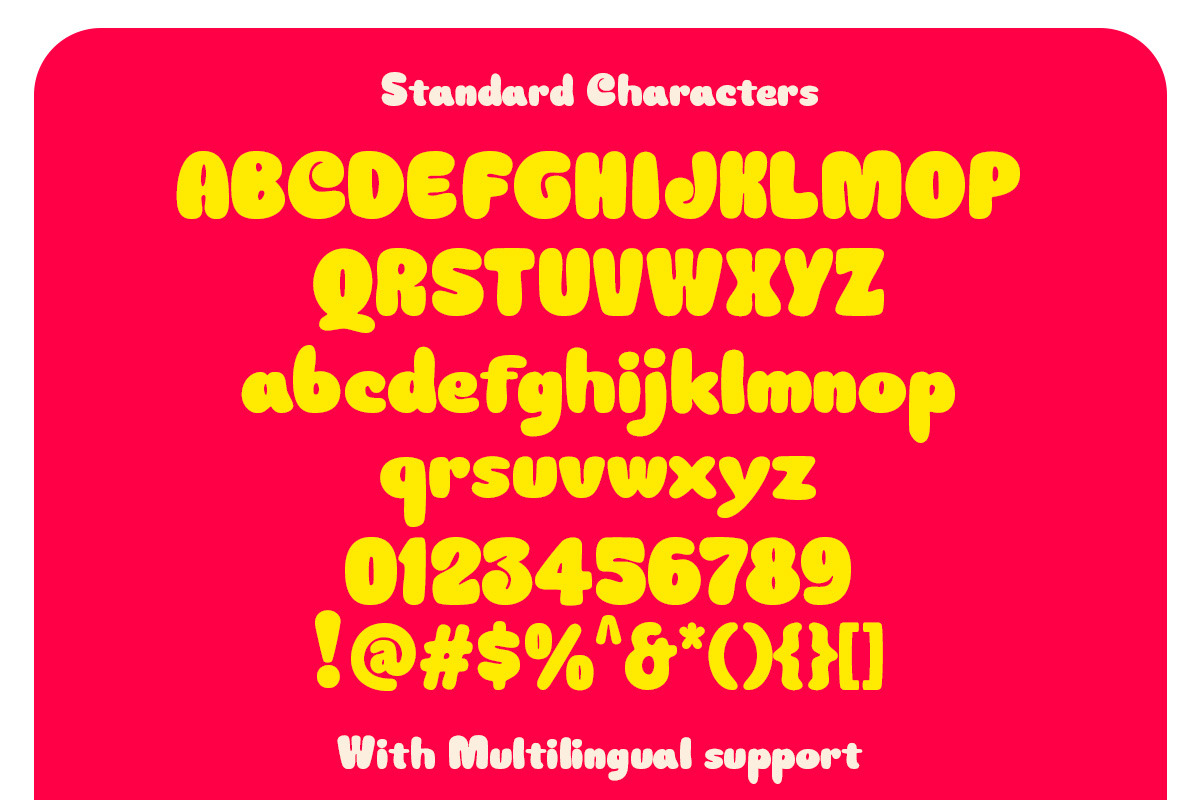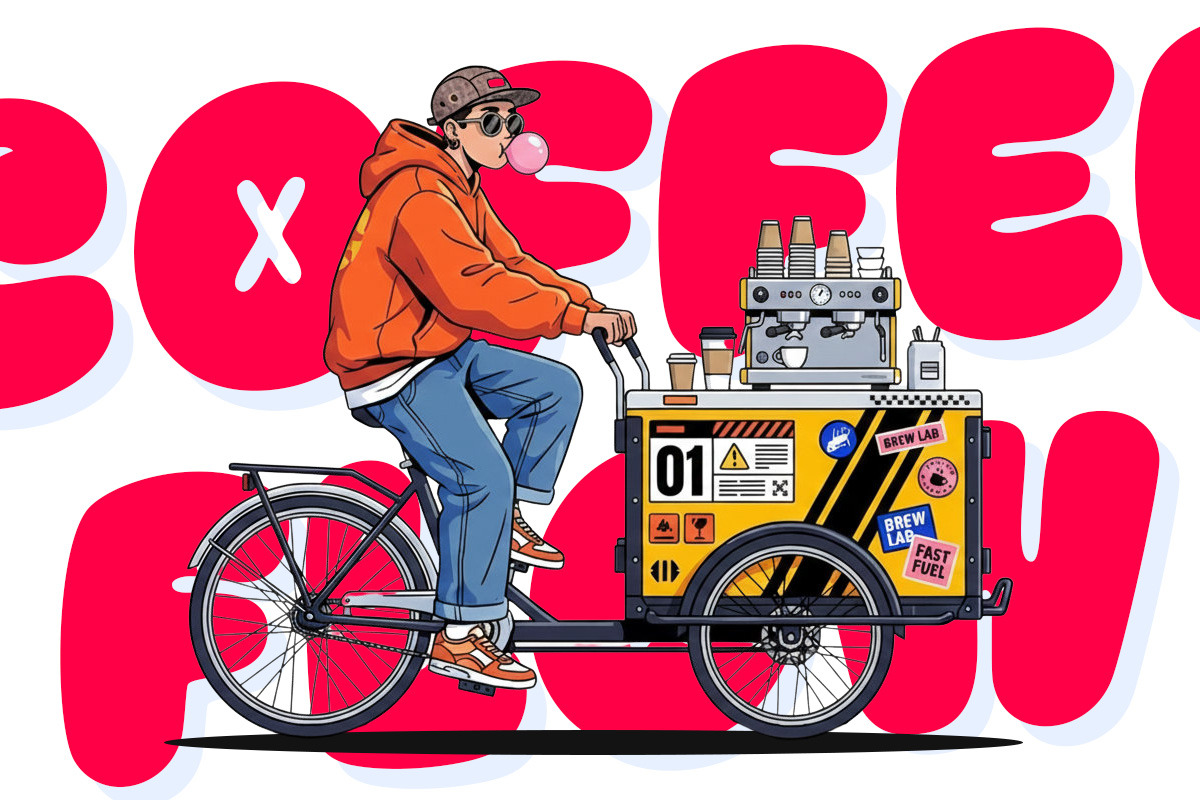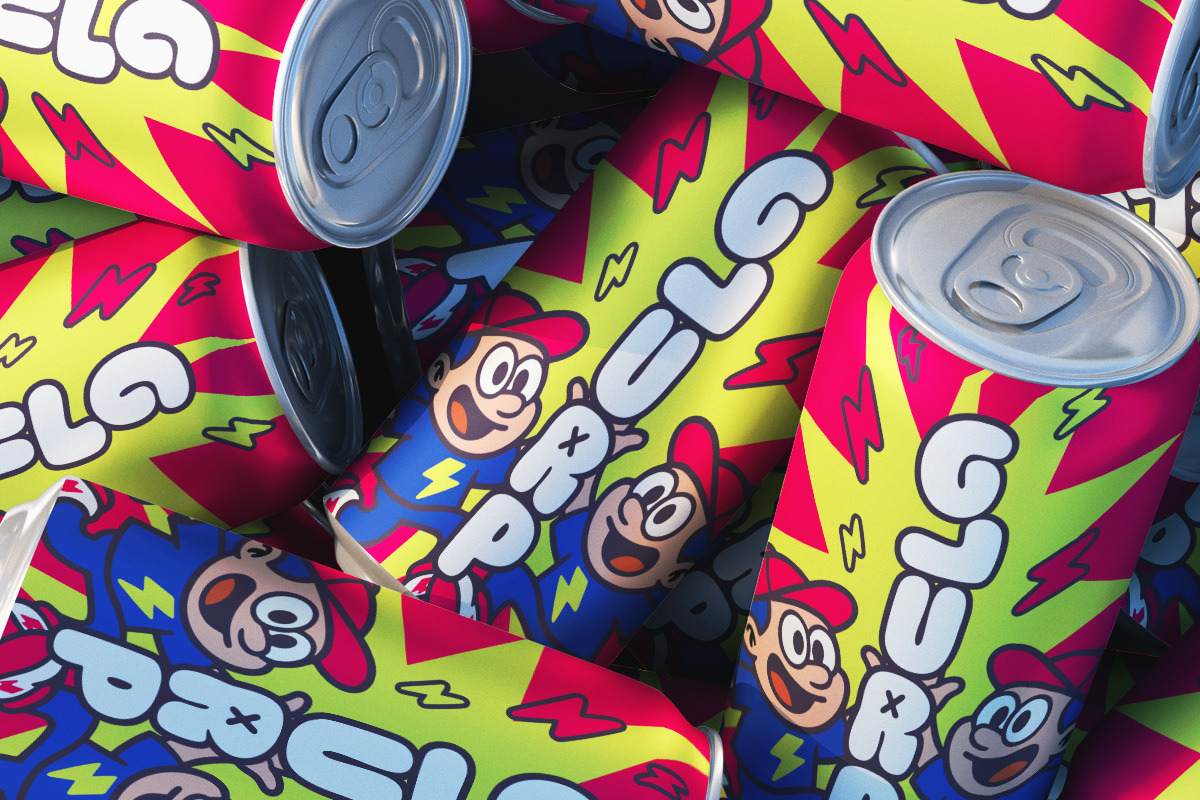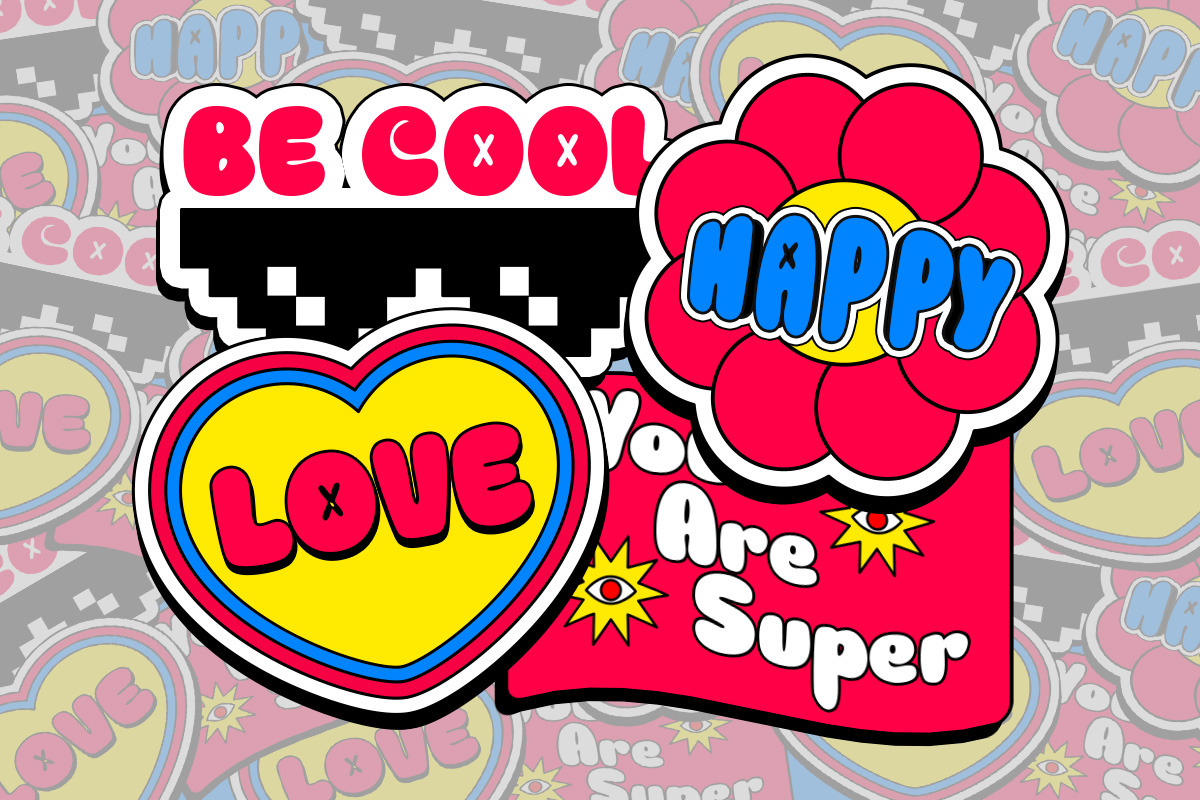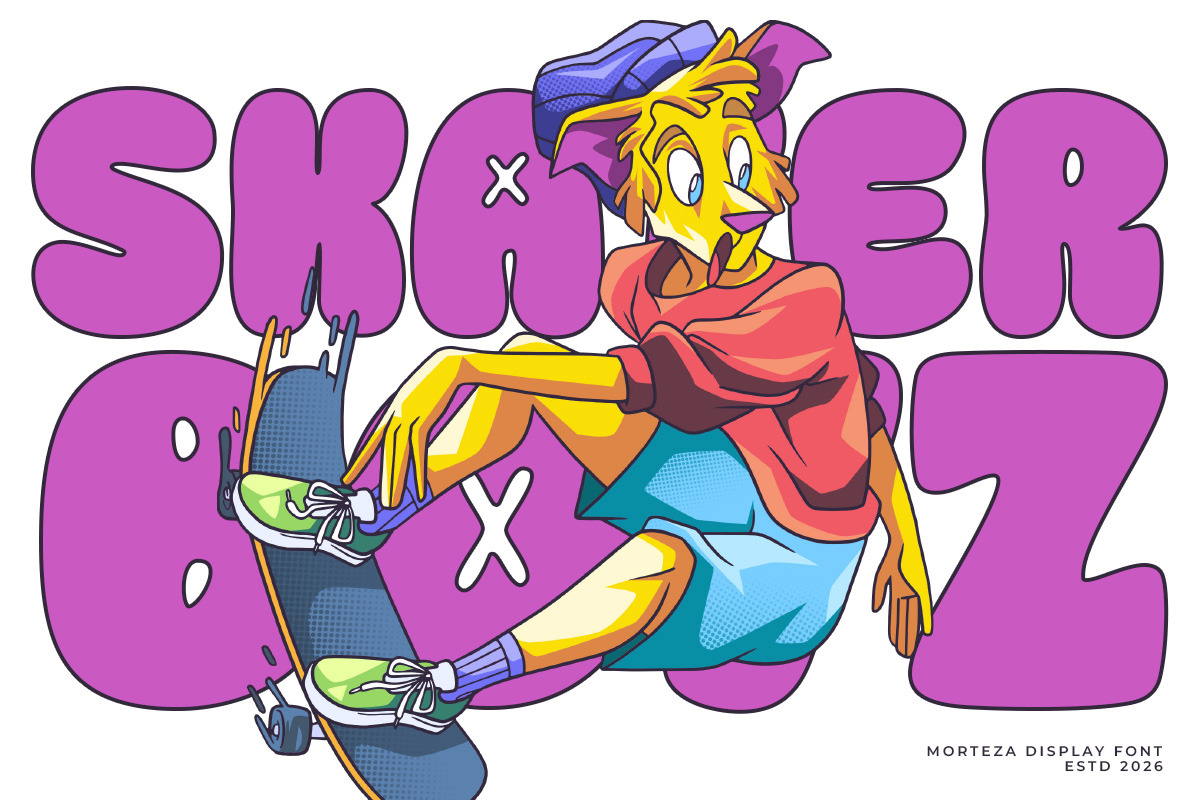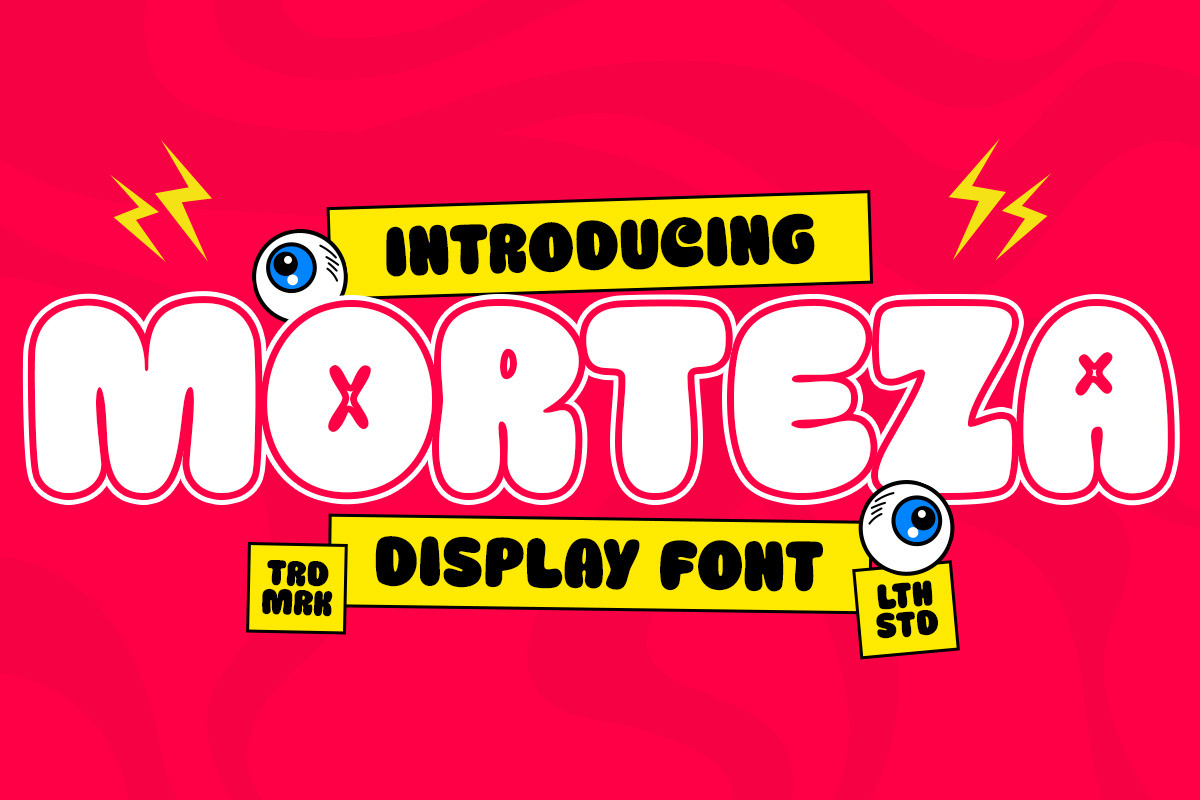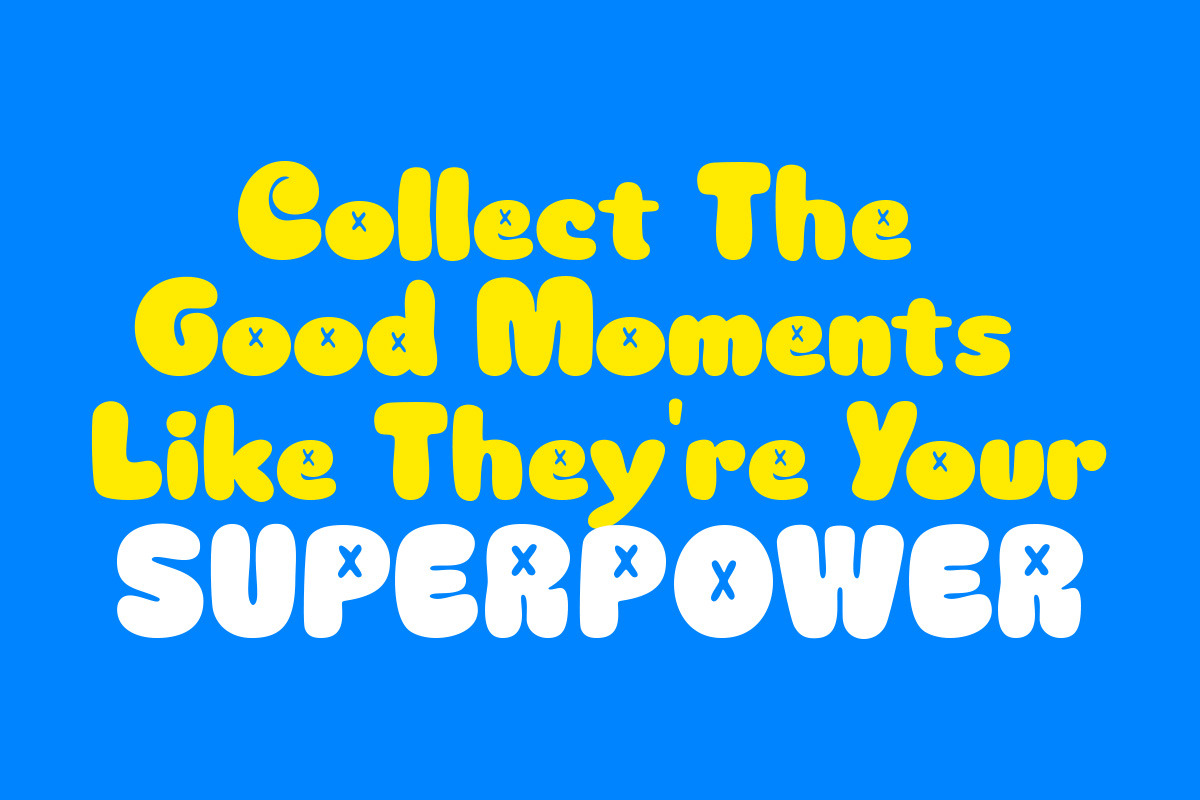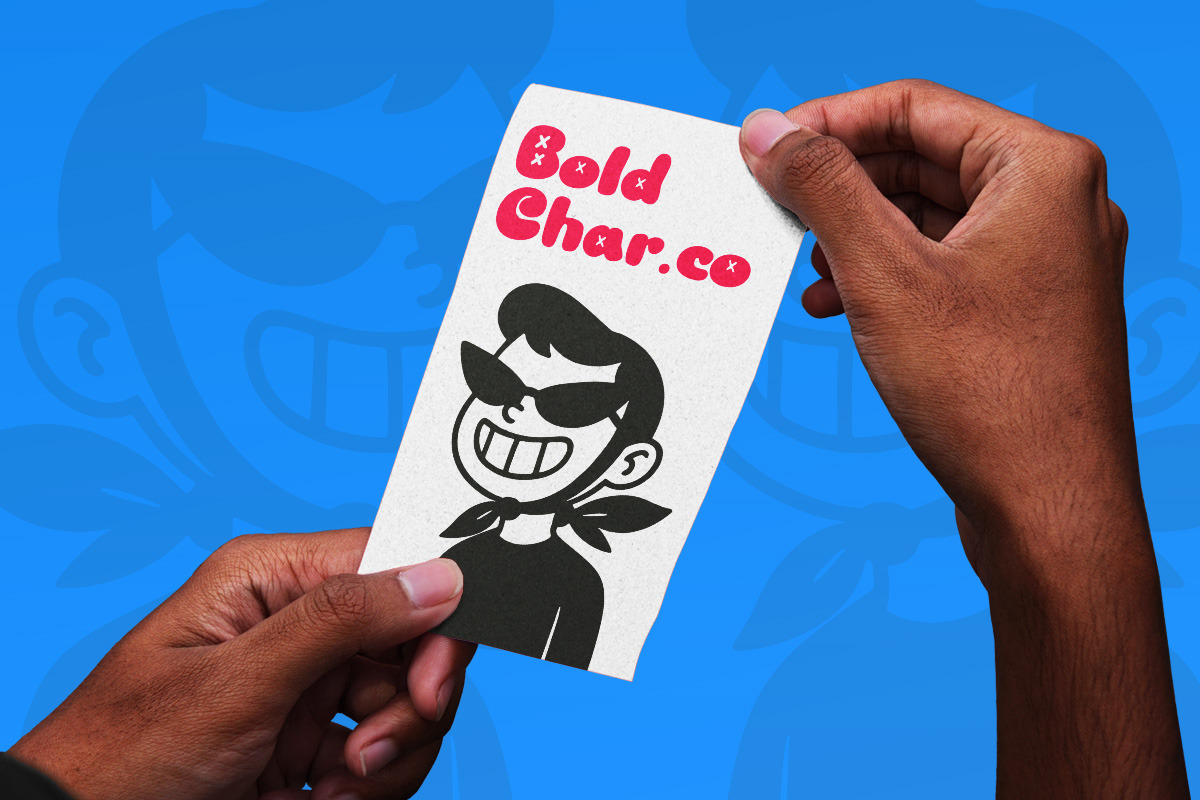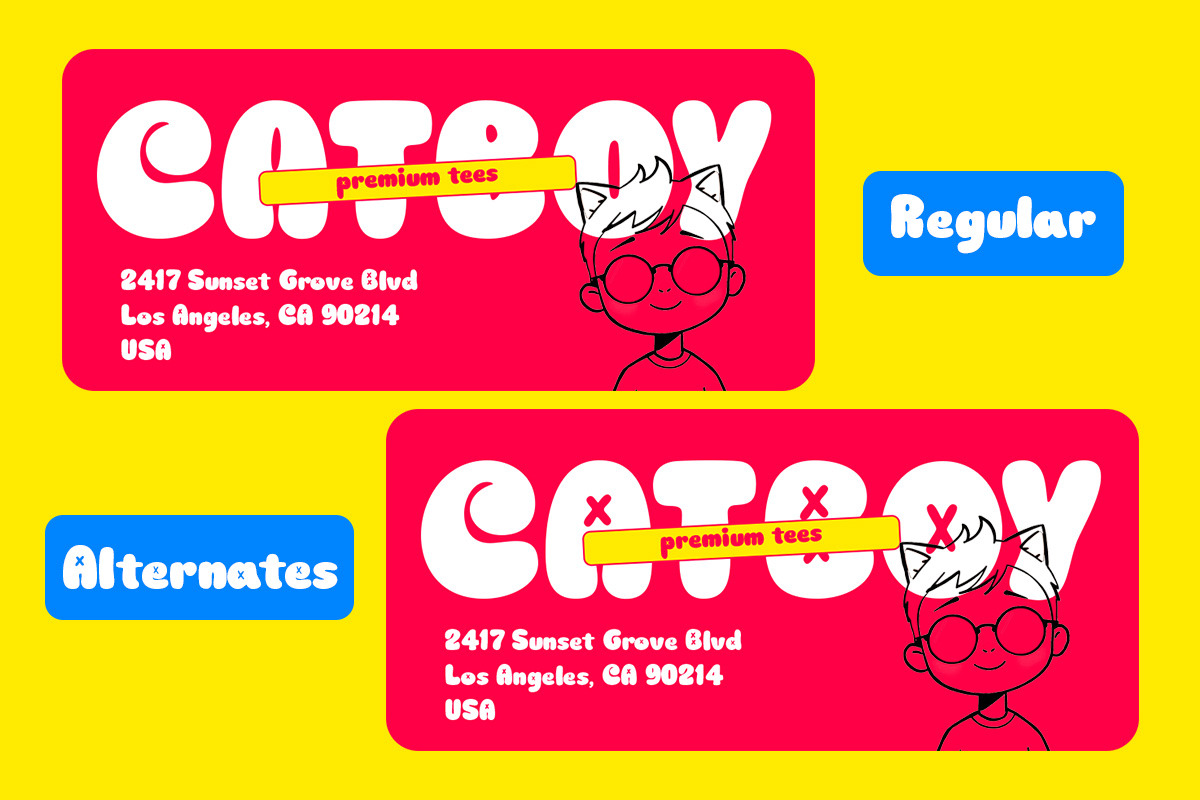
Morteza Bubble Display Font
Morteza is a bold, bubbly display font with a retro-cartoon vibes—full of chunky curves, and playful quirkiness. The letters pop like comic candy, giving off a fun, energetic vibe that feels mischievous yet friendly.